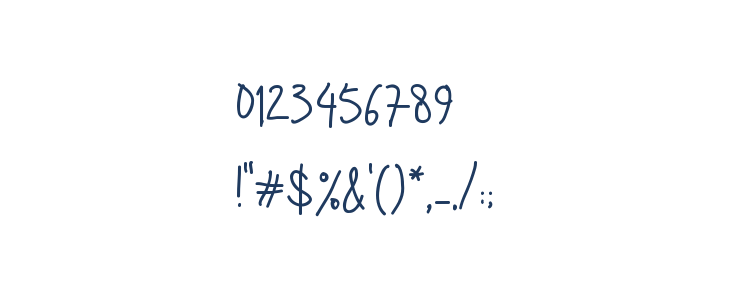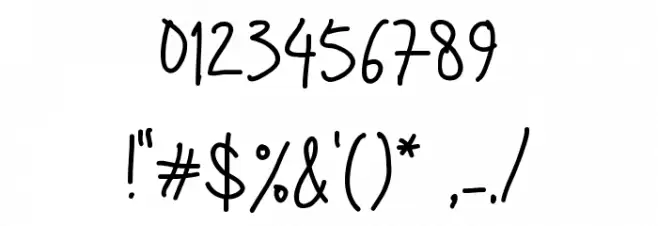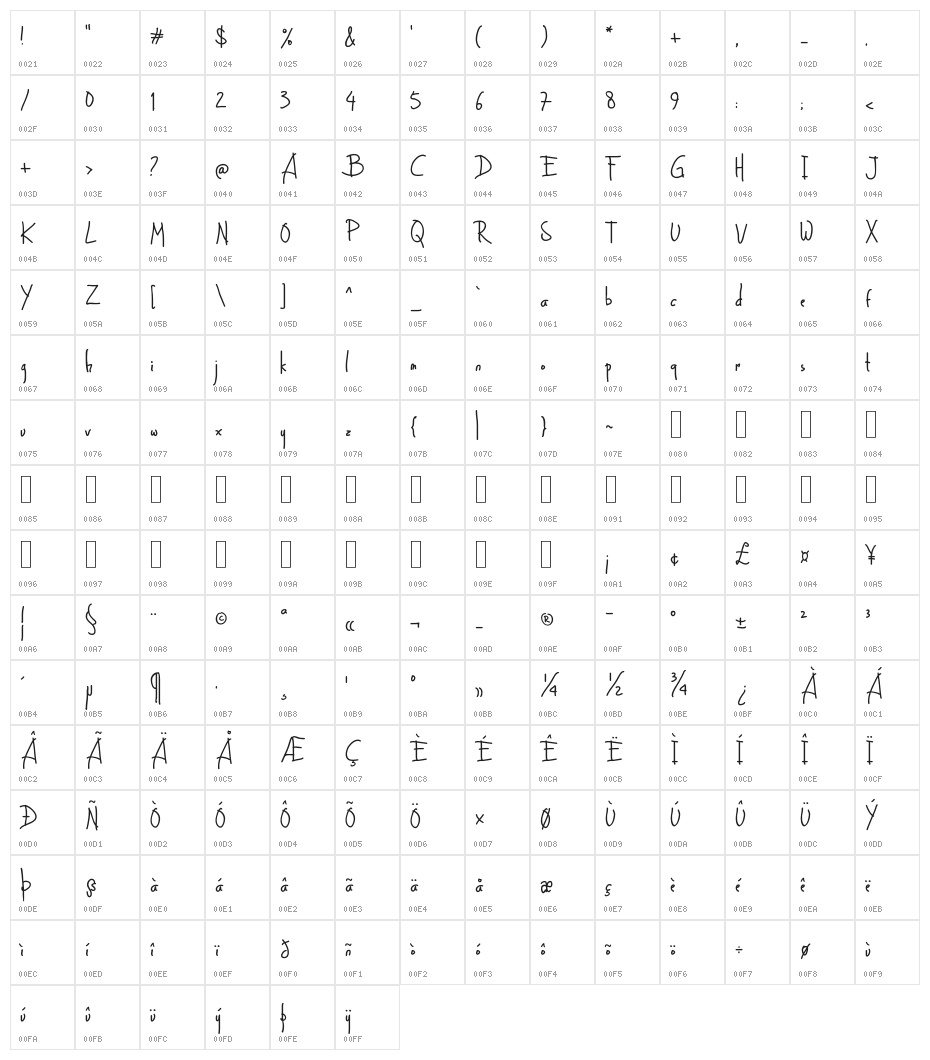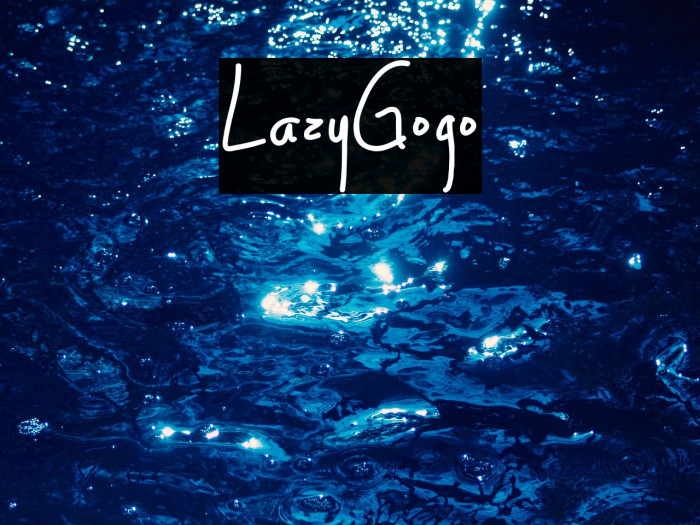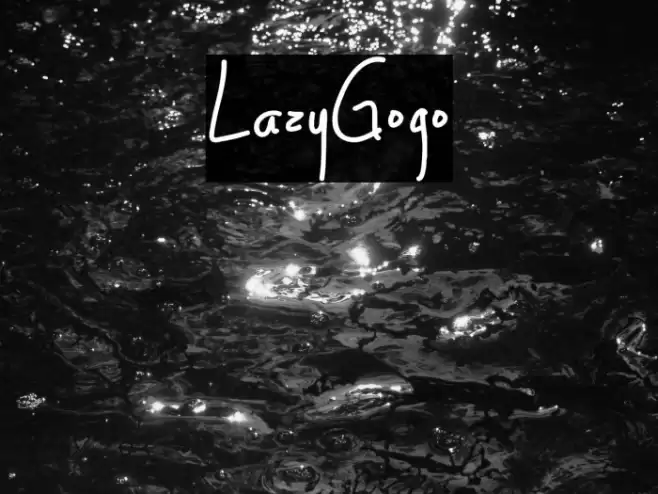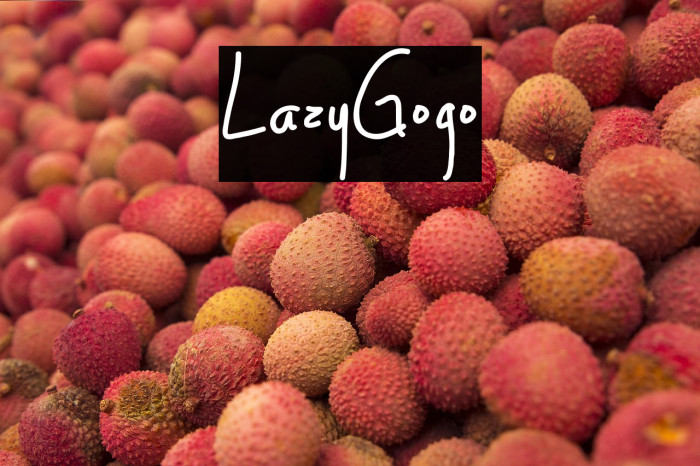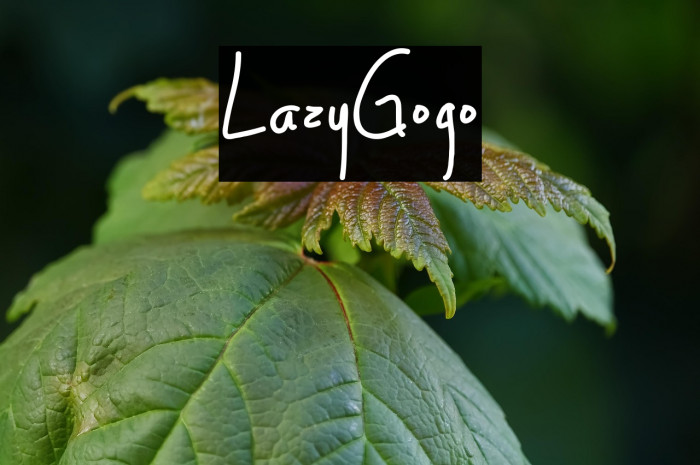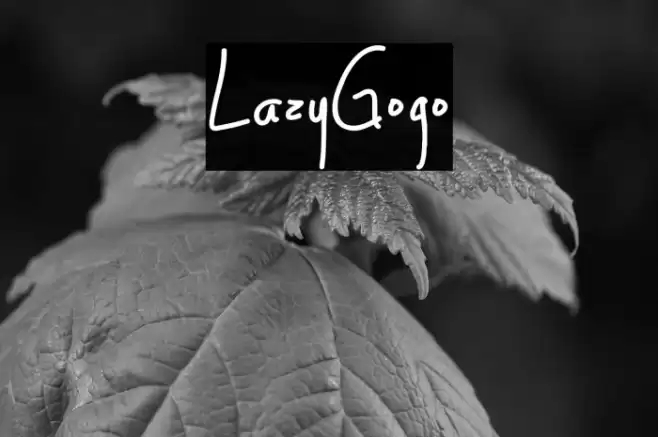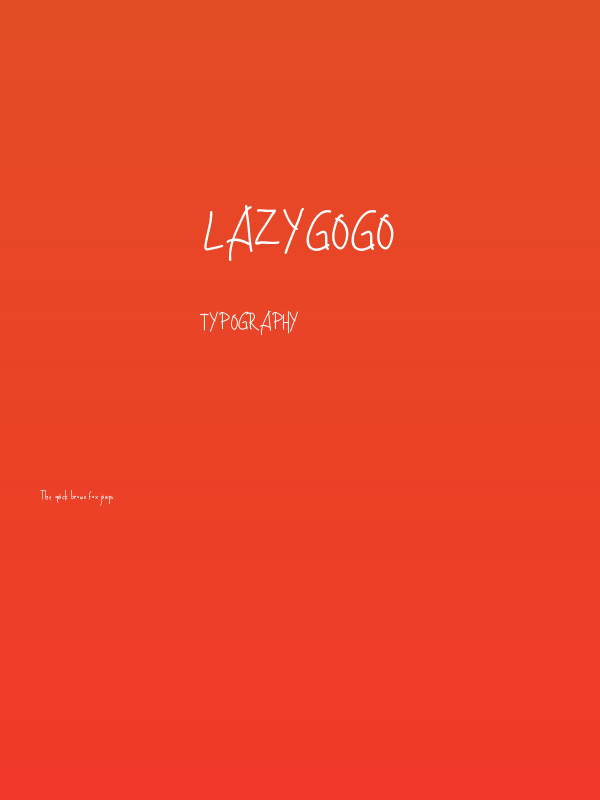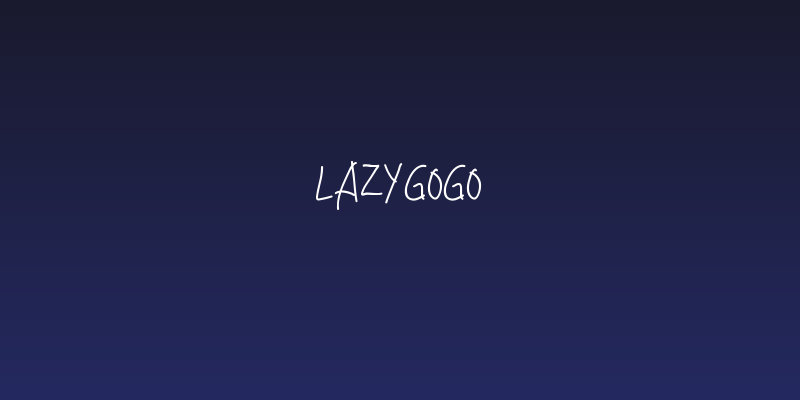
LazyGogo Font
LazyGogo Description
This font features a playful and casual handwritten style, characterized by its irregular and slightly whimsical letterforms. The strokes are uneven, giving it a natural and organic feel, reminiscent of a quick, informal note. The uppercase letters are tall and slightly narrow, while the lowercase letters maintain a consistent flow, enhancing the font's approachable and friendly appearance. The numbers and special characters follow the same informal style, making it versatile for various creative projects. Its unique charm lies in its ability to convey a sense of spontaneity and personality.